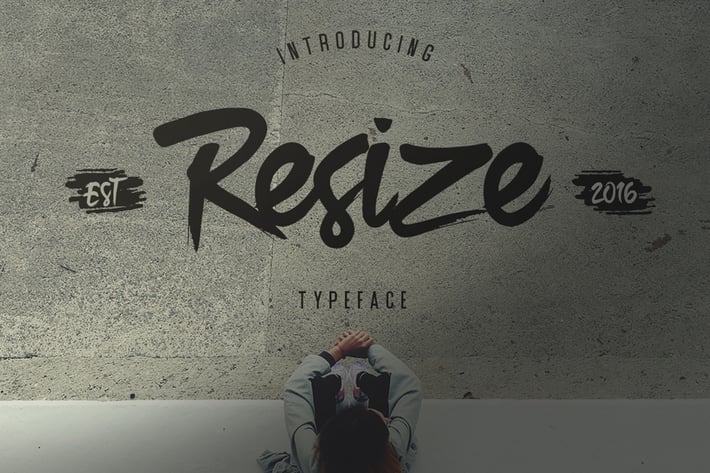
Resize Typeface
Resize Typeface A handmade typeface that inspired from hand-drawn lettering and vintage style, suitable for your awesome works (Brands, Poster, Logo, Advertisement, etc)
+ Multilingual support - spread your message globally AÀÁÂÃÄÅCÇDÐEÈÉÊËIÌÍÎÏNÑOØÒÓÔÕÖUÙÜÚÛWYÝŸỲŸÆŒßÞþ